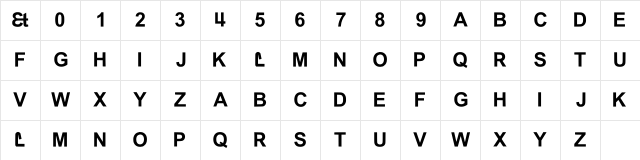
Staples Arial Regular
Complete Staples Arial Regular glyph index. Displaying only characters natively supported by Staples Arial Regular font.
Design Context for Staples Arial
Staples Arial is a composed and adaptable typeface that performs quietly and consistently across a wide range of design contexts.
Pro Tip: Use Staples Arial in both headline and body roles to test its range before committing to a single application.